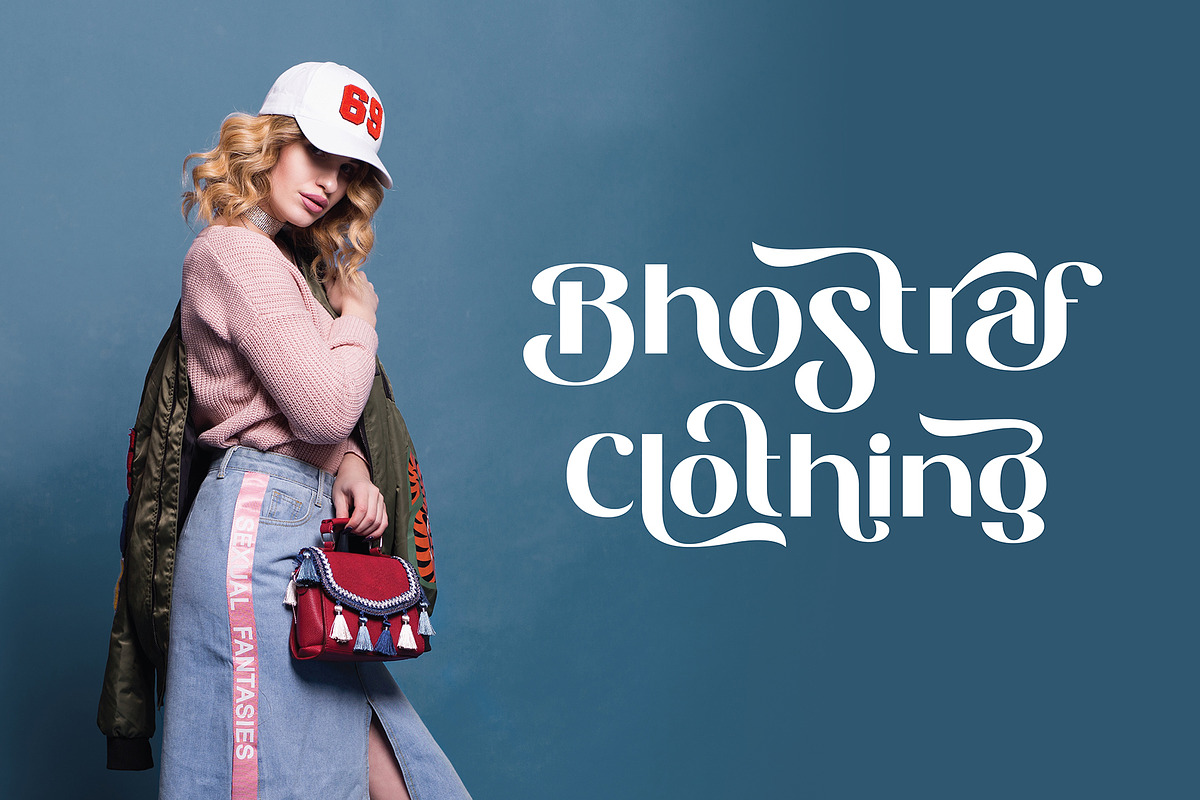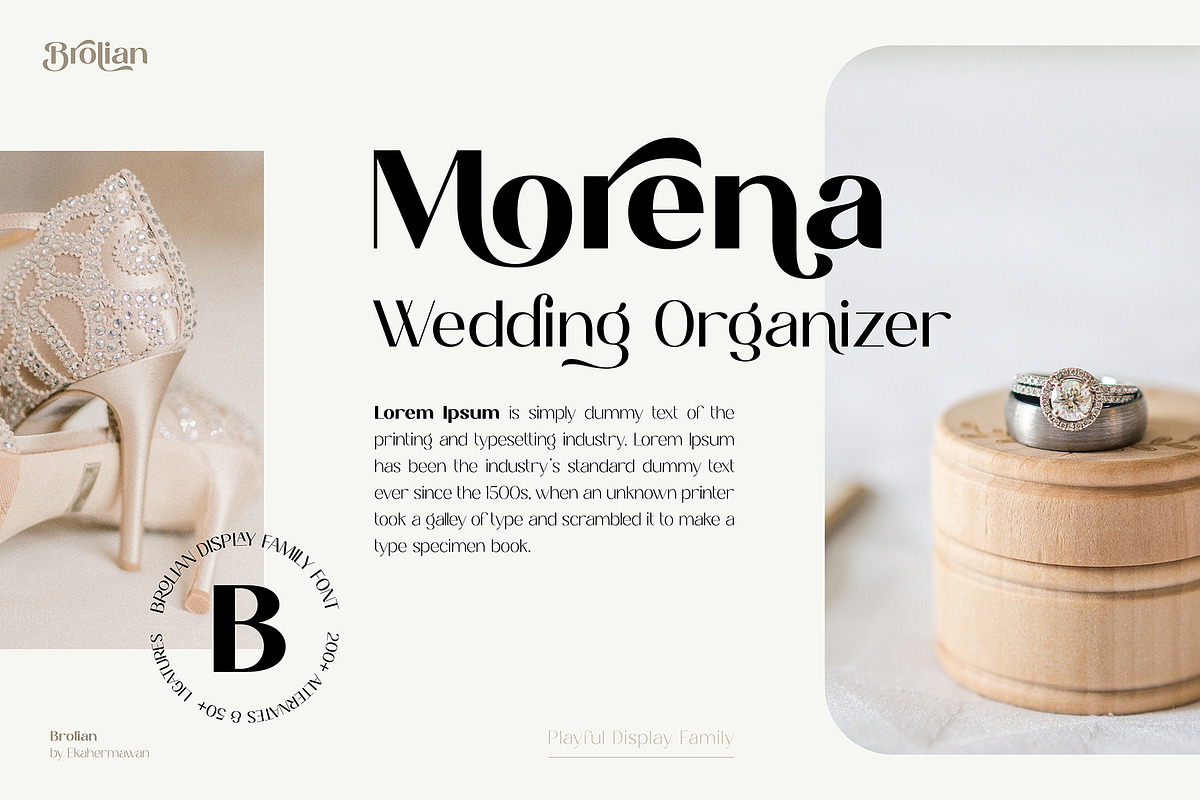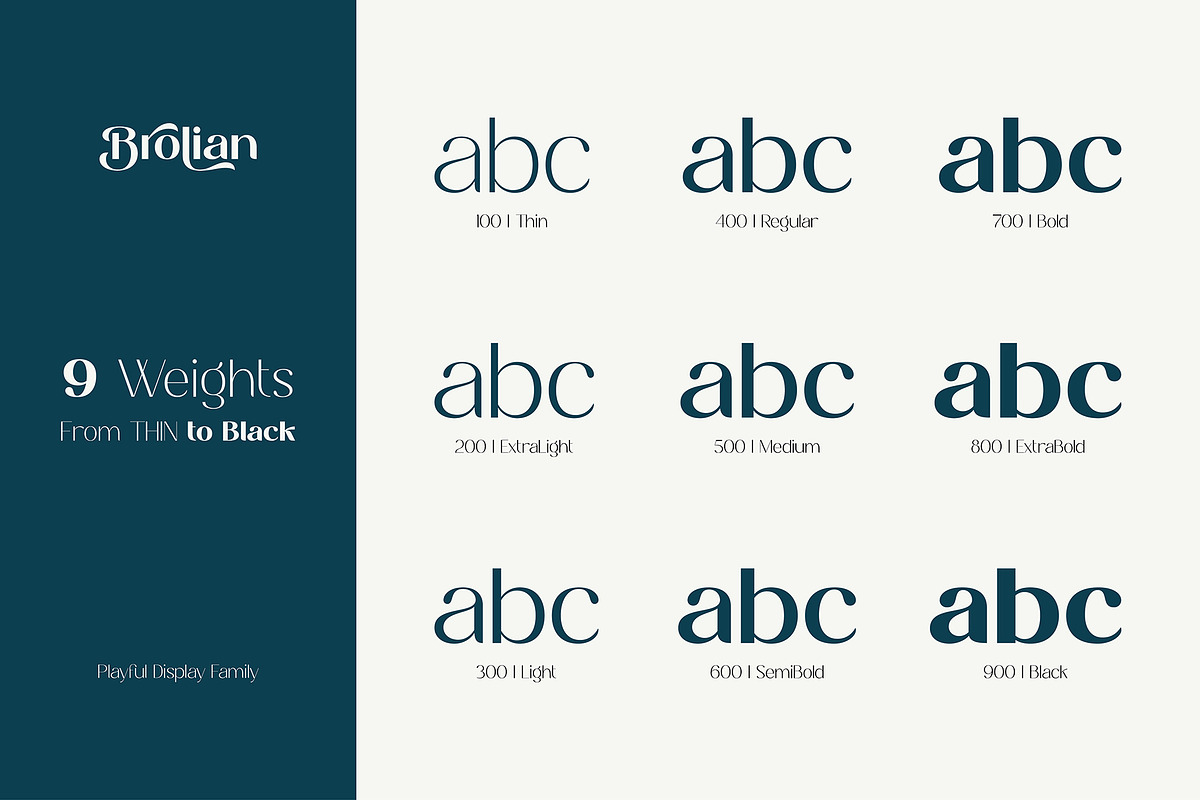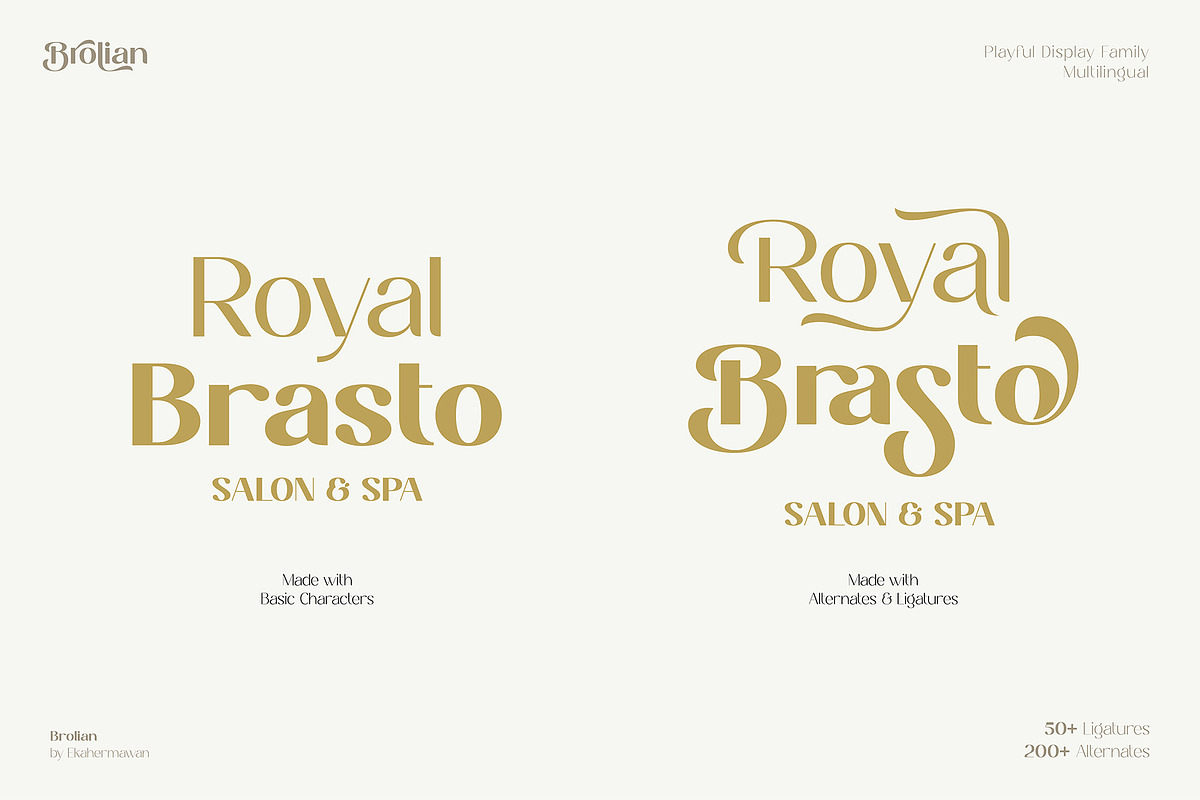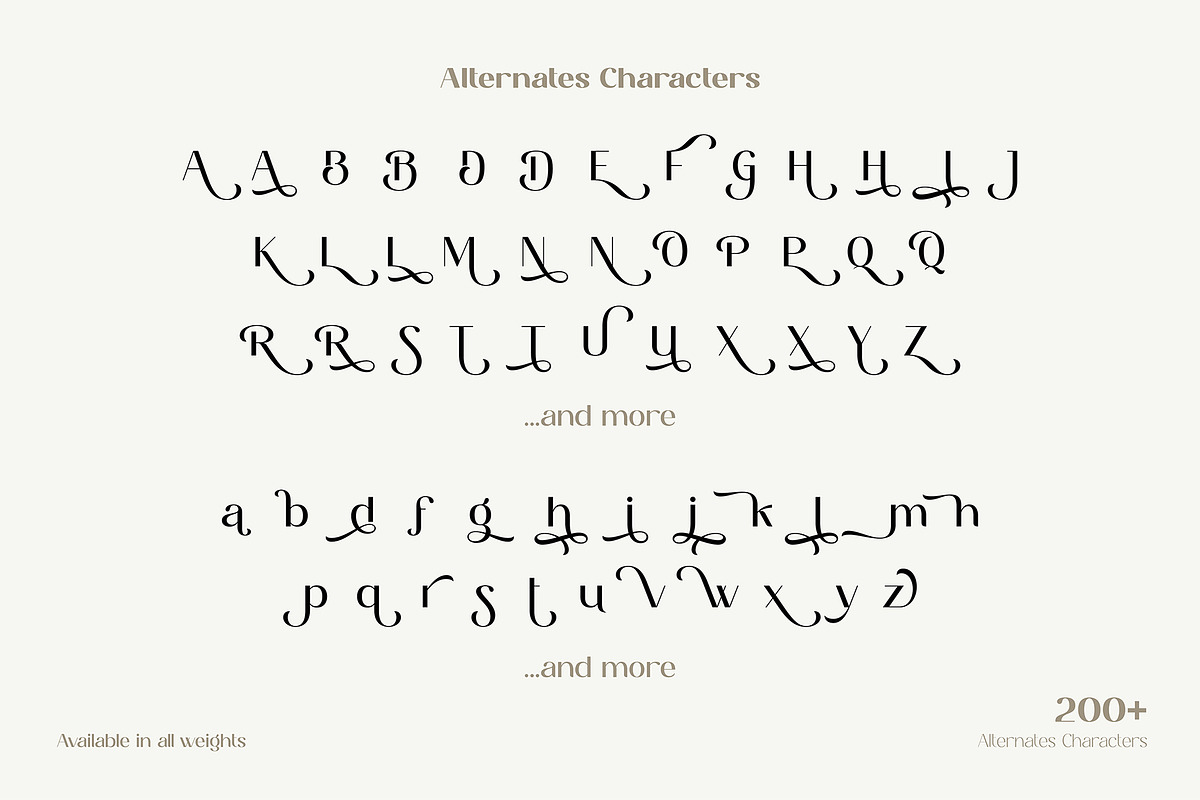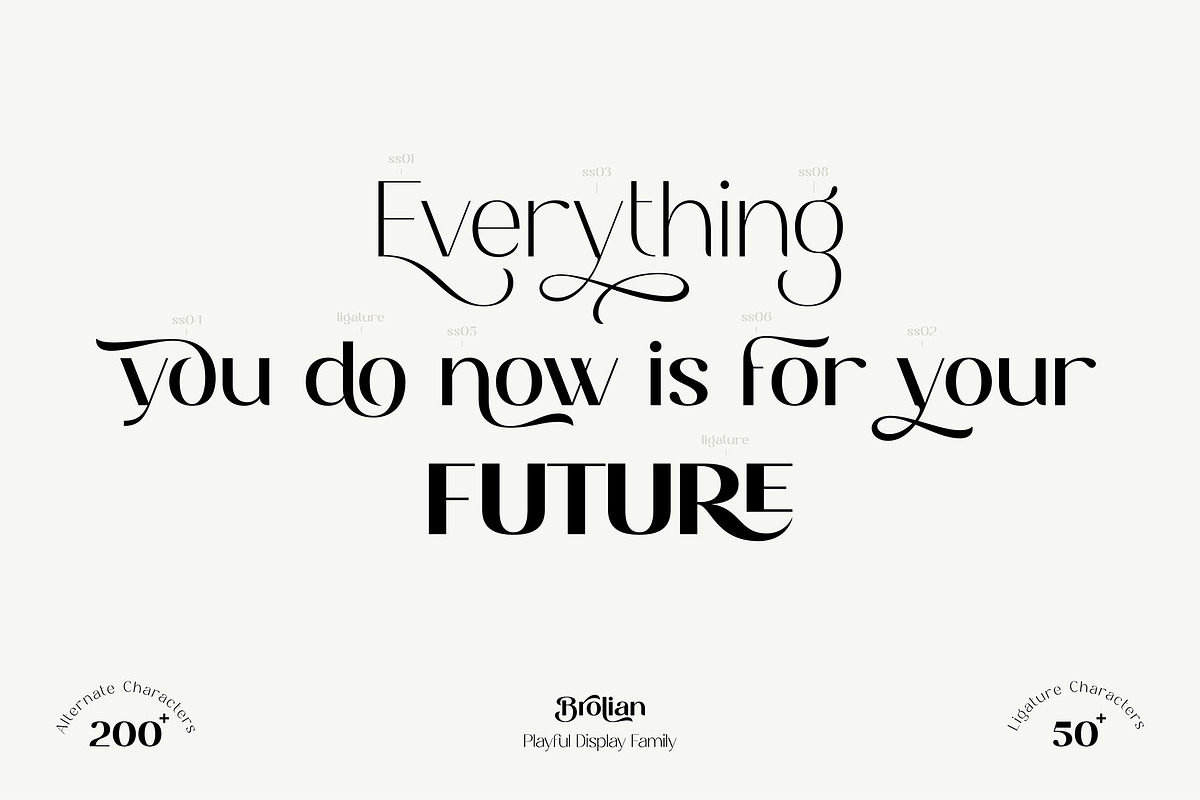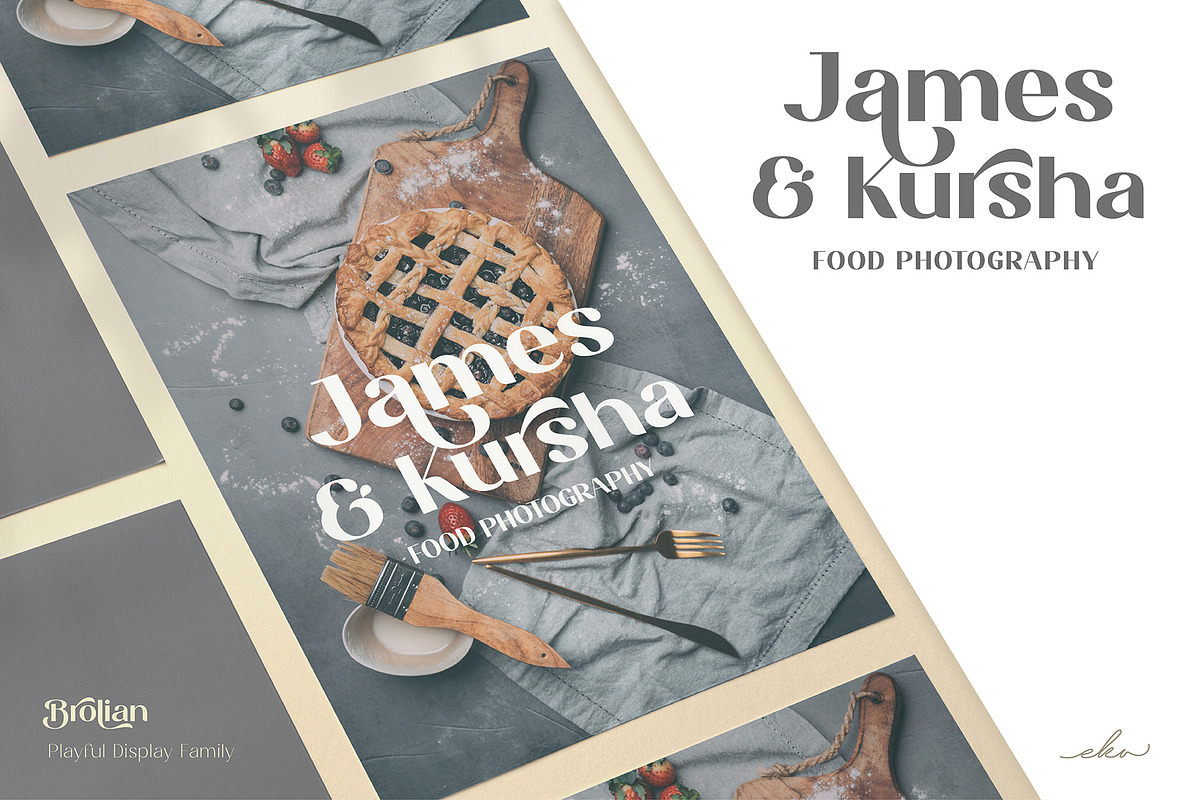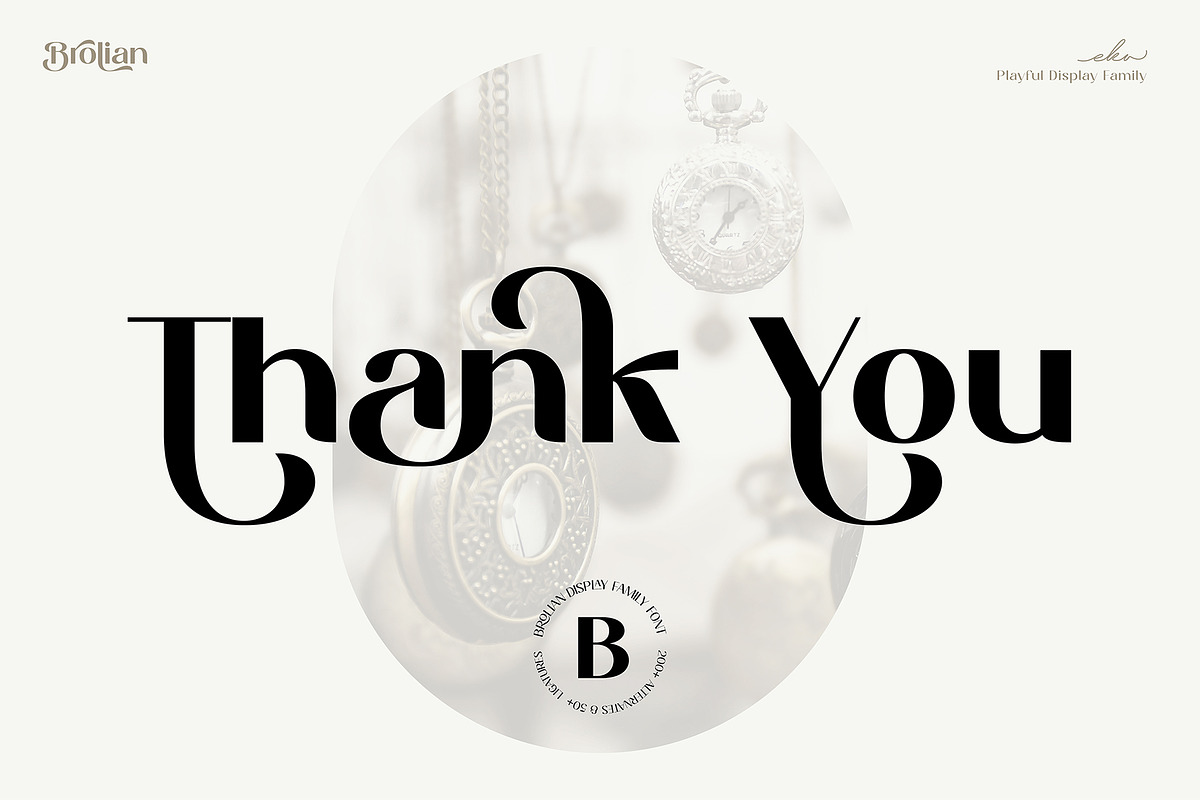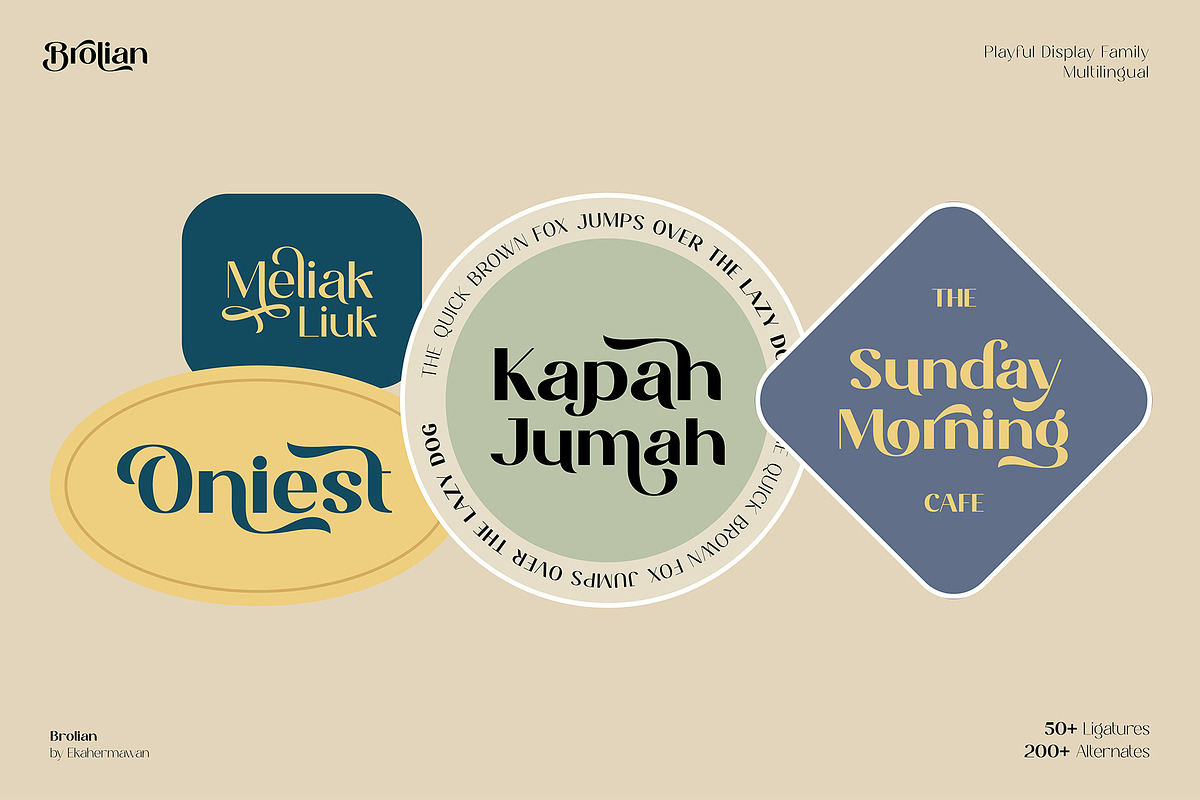
Brolian - Elegant Sans Serif Font
Brolian is playful and stylish designed font for any display use with 9 weights from Thin to Black. Brolian also includes with more than 200+ alternates characters (PUA Encoded) and 50+ ligatures to give you a wide range for create a beautiful typographic design results. Brolian is versatile font for many different projects such as logo, branding, poster, magazines, labels, merchandise, invitation, presentation, advertising, quotes and so much more!
- OpenType support
- Playfull to use (with ligatures and alternates options)